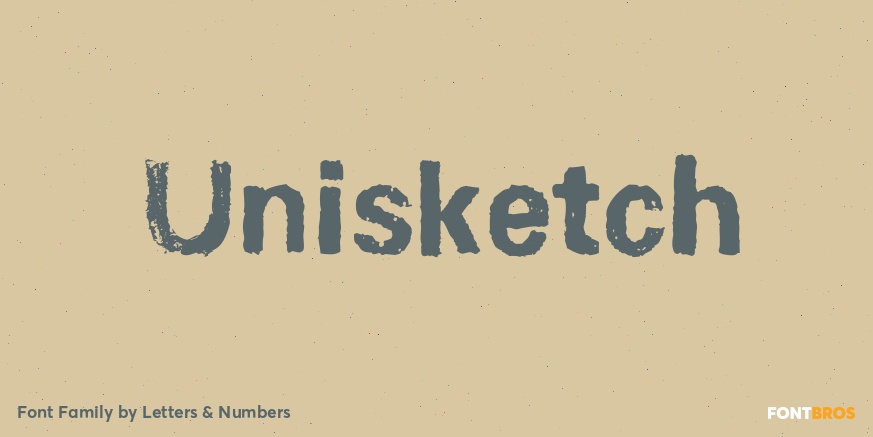
Unisketch
About Unisketch
Unisketch is an homage to my favorite font Univers when I was at design college. Univers is a neo grotesk font by famous Swiss typeface designer Adrian Frutiger. Unisketch, with its worn, misaligned and slightly tilted characters, still retains some…